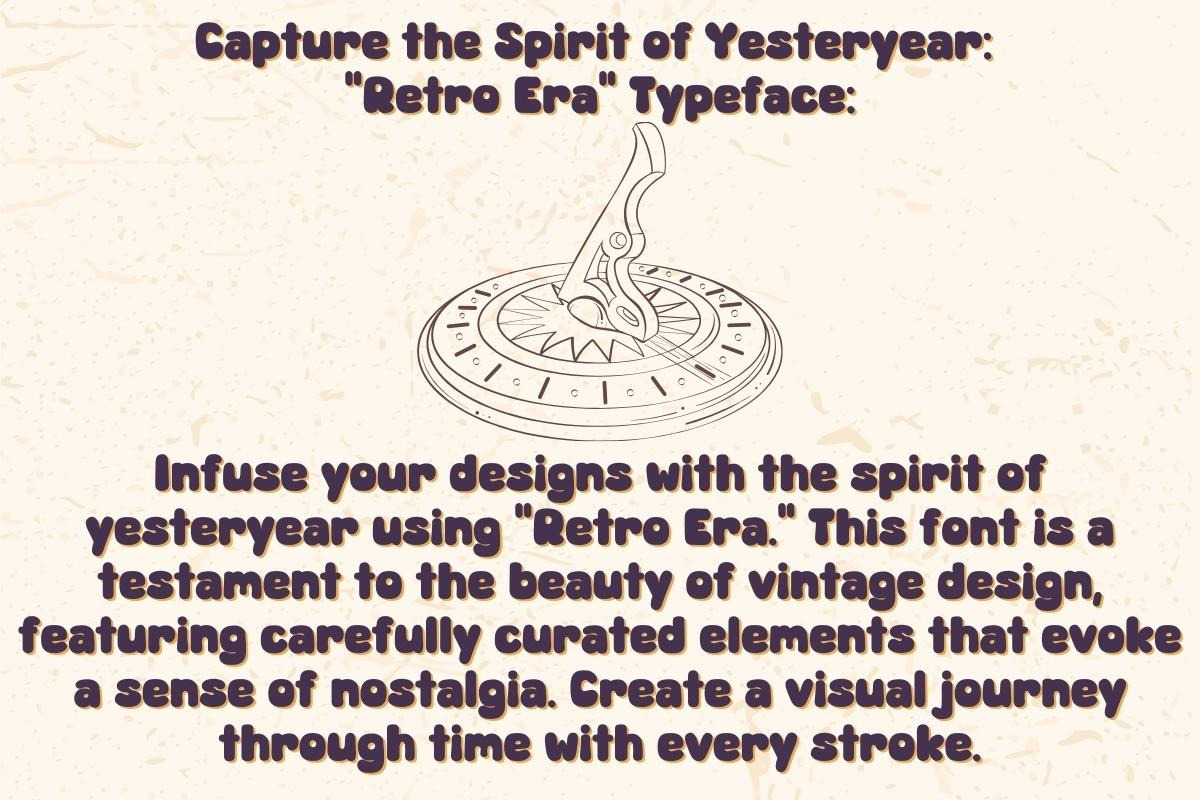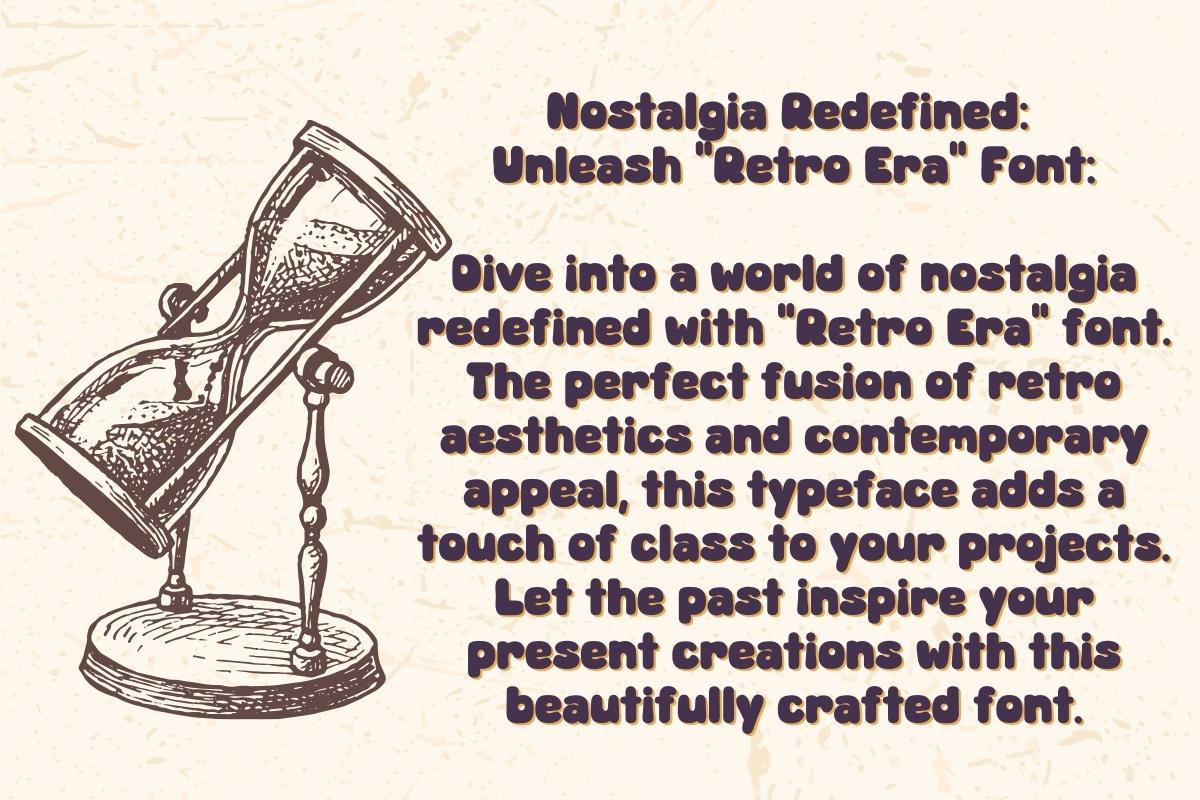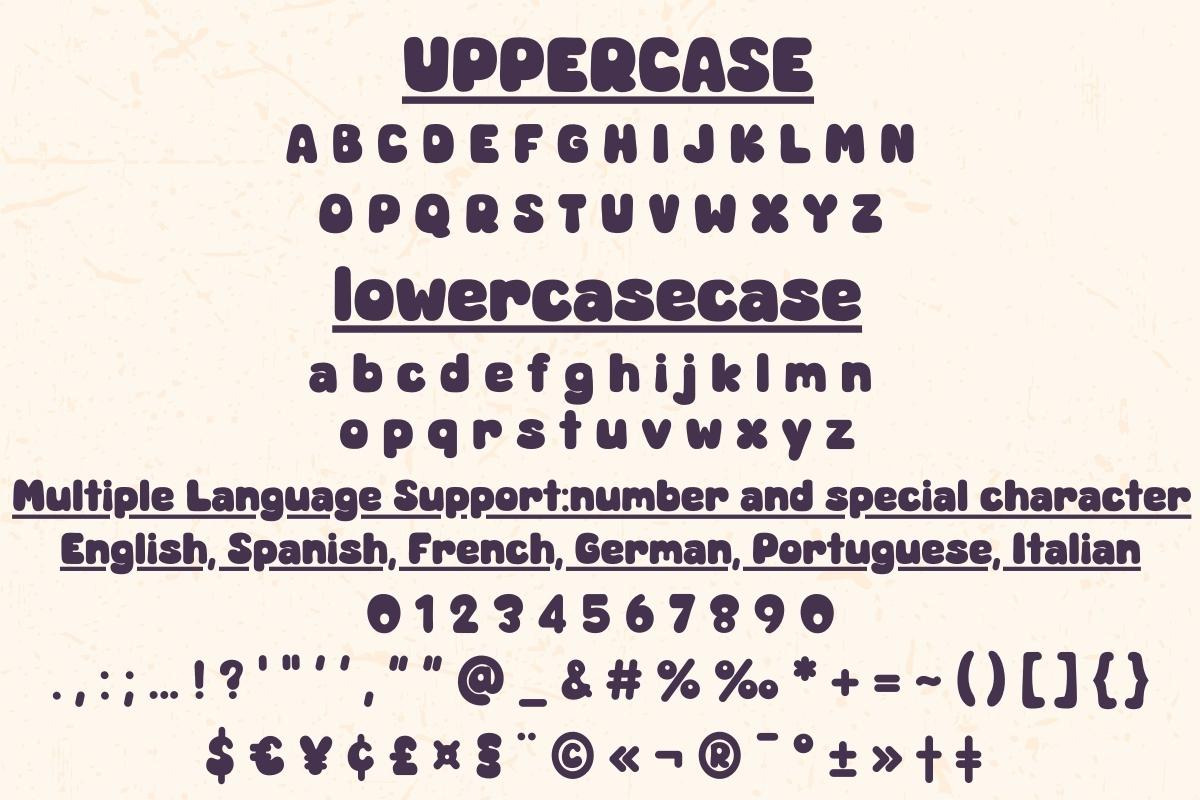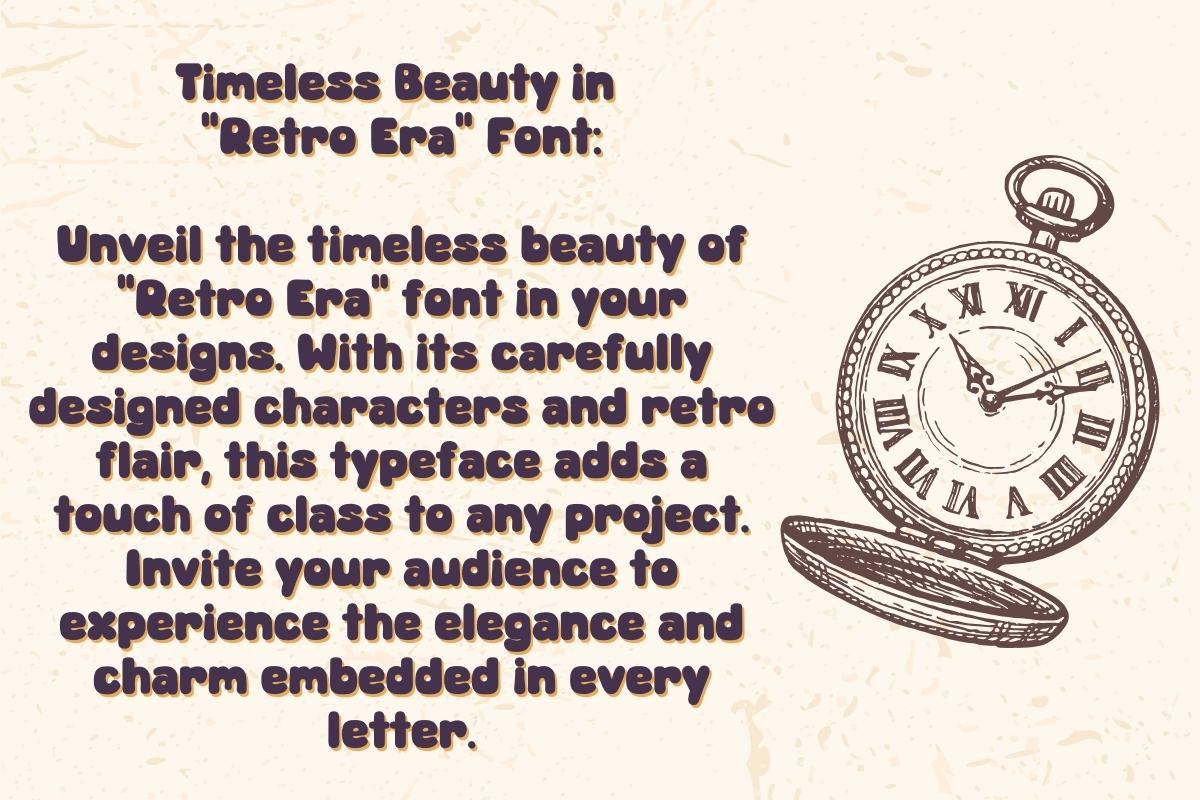
Retro Era - Handwritten
Step Back in Time with "Retro Era" Font: Rediscover the allure of the past with "Retro Era" font. Each character is a journey through time, capturing the essence of bygone eras in a beautifully crafted typeface. Transport your designs to a nostalgic realm where every letter tells a story.